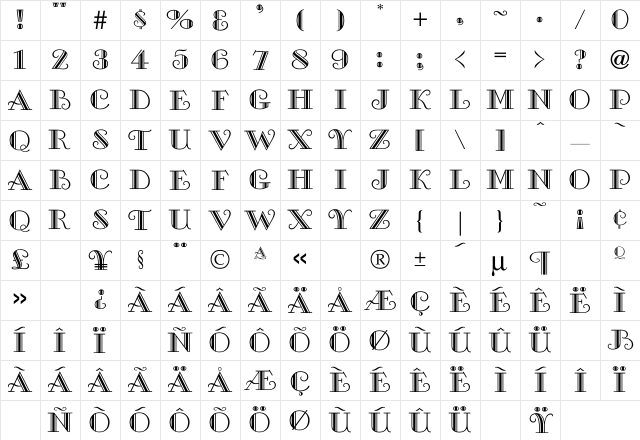
Smallwoo-Normal Regular
Design Context for Smallwoo-Normal
Smallwoo-Normal is a composed and adaptable typeface that performs quietly and consistently across a wide range of design contexts.
Pro Tip: Use Smallwoo-Normal in both headline and body roles to test its range before committing to a single application.